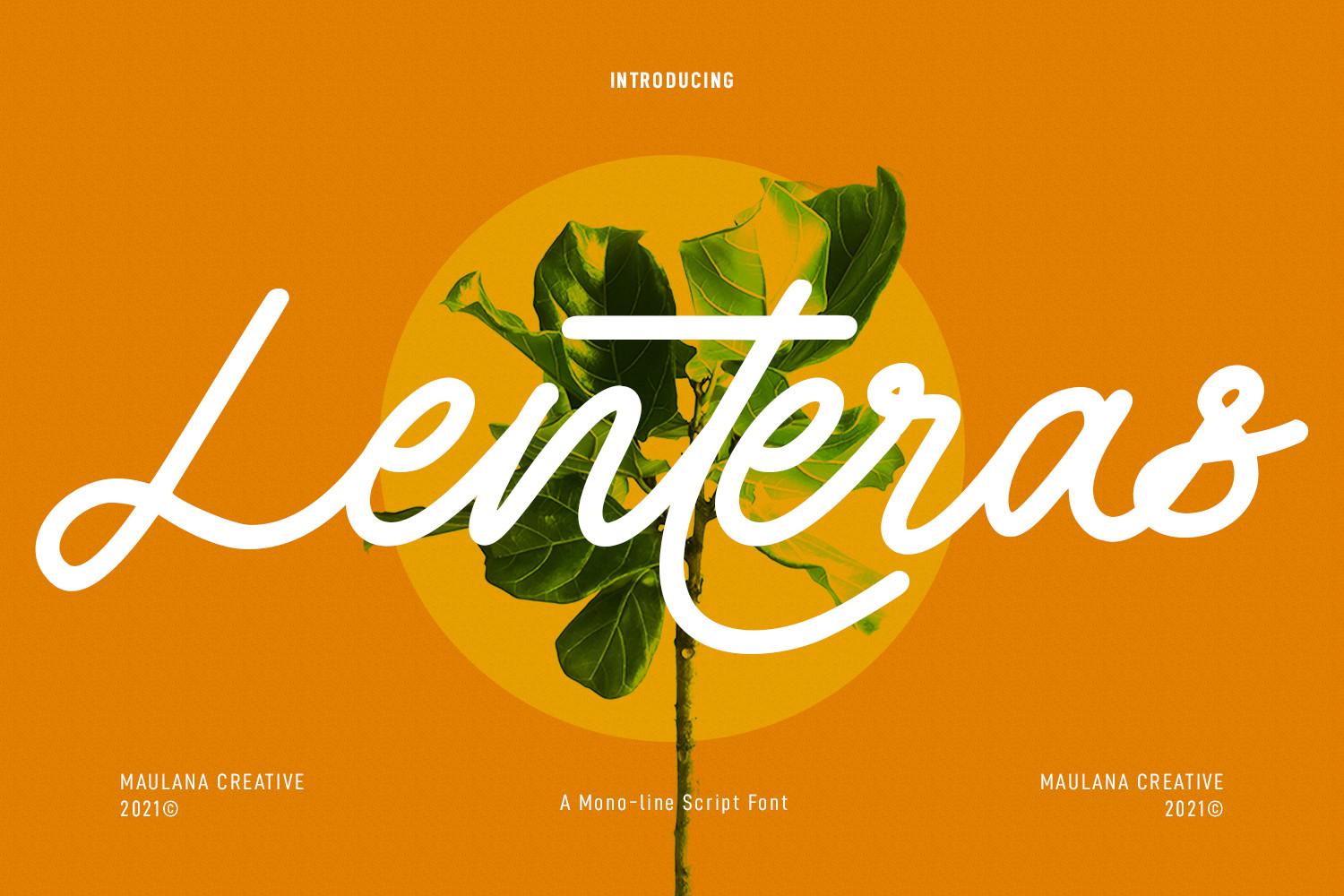
Lenteras Monoline Script Font Description
Lenteras Monoline Script is a beautiful, well balanced and vintage styled script font. It is defined by smooth curves and is perfect for fashion branding or editorial designs. Add it confidently to your projects, and you will love the results.